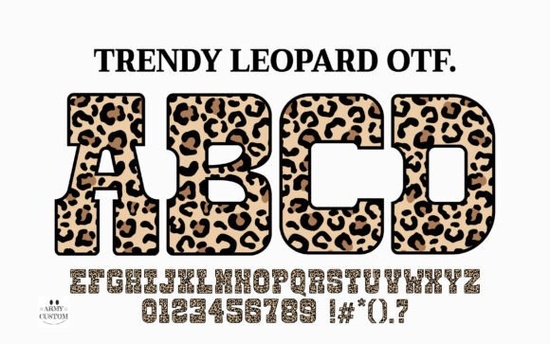
If you’ve been searching for a bold, fashion-forward typeface that adds instant attitude to your designs, the Trendy Leopard Font might be exactly what you need. This isn’t just another decorative font it’s a statement piece built for creators who want their work to stand out without spending hours layering textures or effects. Whether you’re designing custom T-shirts, social media graphics, or party invites, this font delivers a high-impact look with minimal effort.
The Trendy Leopard Font blends a thick, collegiate-style slab serif structure with a crisp, high-definition leopard print pattern baked right into each character. That means no extra steps in Photoshop or Illustrator you get a ready-to-use texture that’s both eye-catching and print-ready. It’s especially popular among print-on-demand sellers crafting “Mama” tees, sports jerseys, or streetwear-inspired apparel where animal prints meet urban edge.
Why designers love using textured fonts like this one
Time is precious when you’re juggling client work or running a small creative business. Fonts that include built-in patterns like the leopard print in this design eliminate the need to manually apply overlays or masks. You simply type your text, and the visual interest is already there. For crafters using Cricut or Silhouette machines, the solid, chunky letterforms also ensure clean cuts, reducing the risk of intricate details tearing during weeding.
And because the pattern is part of the glyph itself, you avoid alignment issues or resolution loss that can happen when stacking separate image layers. That reliability makes it a smart choice for both digital and physical products.
How to pair it without overwhelming your layout
While the Trendy Leopard Font shines as a headline or focal element, it’s not meant to carry body text. The pattern and weight demand attention, so balance is key. Most designers pair it with a simple, neutral sans-serif think Helvetica, Arial, or even a clean geometric font like Montserrat. This contrast keeps your message readable while letting the leopard print do the heavy lifting visually.
For example:
- Use Trendy Leopard for your main title or slogan.
- Switch to a lightweight sans-serif for descriptions, dates, or fine print.
- Stick to black, white, or neutral backgrounds to let the texture pop without competing.
Best uses for this font in real-world projects
This typeface thrives in contexts where confidence and style matter. Here are a few proven applications:
- Apparel design: From gym wear to mom-life tees, the bold silhouette reads well even at smaller sizes on shirts and hoodies.
- Social media graphics: Instagram carousels, TikTok thumbnails, or Pinterest pins benefit from its immediate visual hook.
- Event branding: Birthday parties, bachelorette weekends, or fashion pop-ups gain a luxe-but-edgy vibe with minimal design work.
- Merchandise and packaging: Stickers, tote bags, or product labels that need to feel trendy without looking cluttered.
Just remember: because it’s a display font, avoid using it in long paragraphs or tiny sizes. Its strength lies in short, impactful phrases.
When used thoughtfully, the Trendy Leopard Font can add just the right mix of fierceness and flair without slowing down your workflow. Start small: try it on a single product or post, see how your audience responds, and let its built-in texture do the rest.